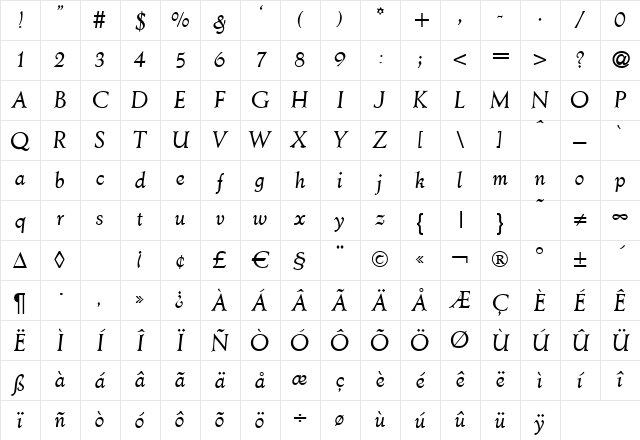
Complete Aesop Italic glyph index. Displaying only characters natively supported by Aesop Italic font.
Aesop is a composed and adaptable typeface that performs quietly and consistently across a wide range of design contexts. The slanted form adds forward momentum and visual energy.